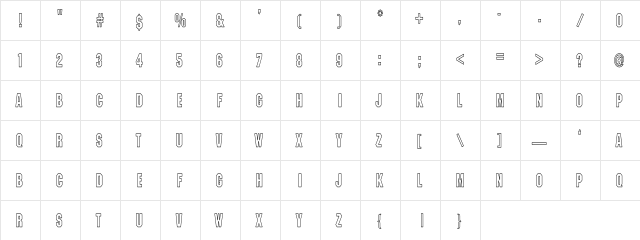
Machine-LightHC Regular Font Preview
Machine-LightHC Regular
Design Context for Machine-LightHC Typeface
Machine-LightHC is a composed and adaptable typeface that performs quietly and consistently across a wide range of design contexts. The delicate stroke weight brings airiness and refinement to layouts.